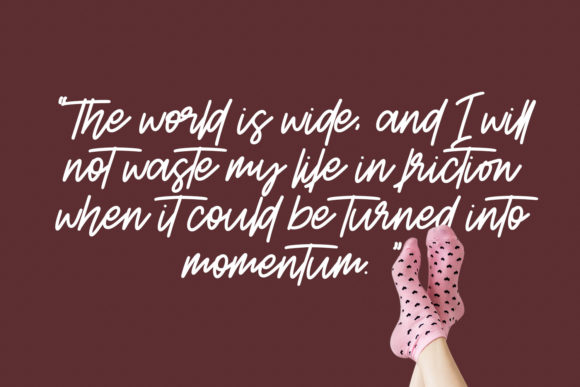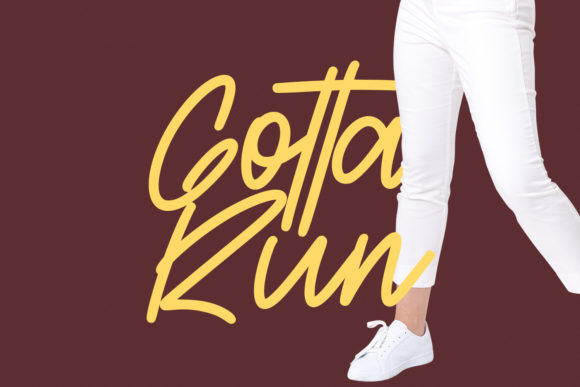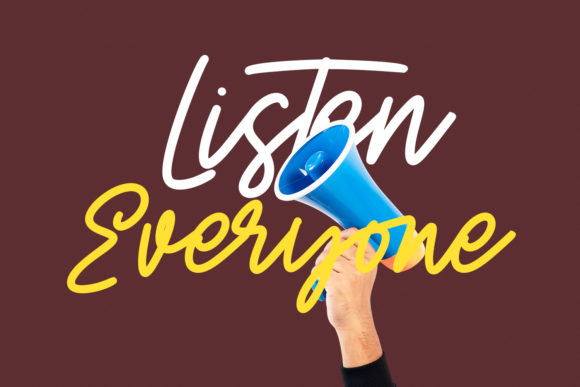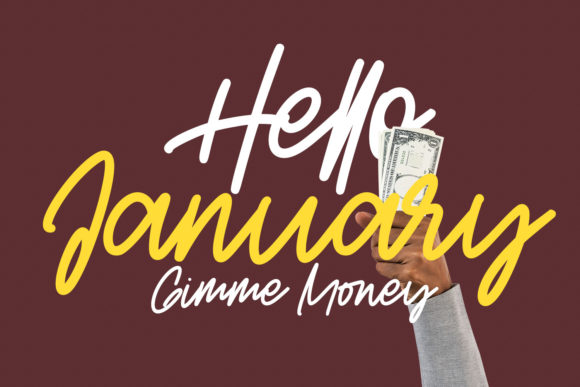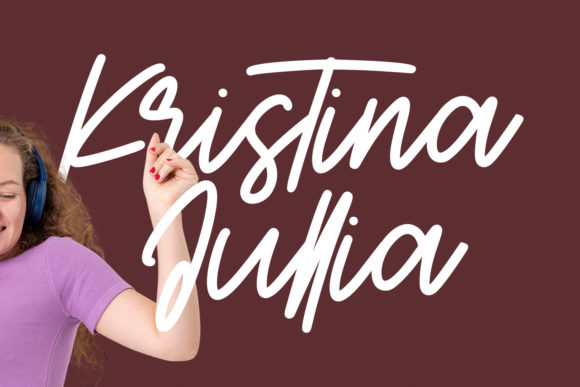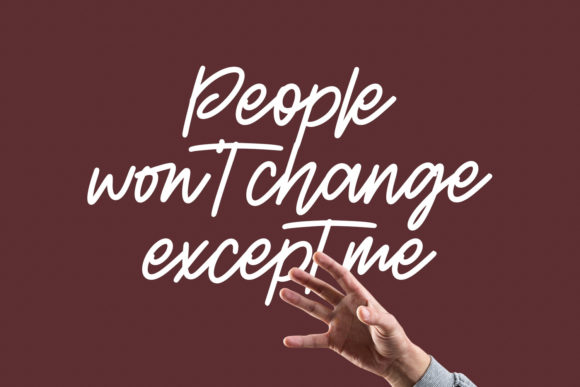
Introduction to Headskirt Font
Headskirt is a relaxed, casual and vintage styled script font.
Its informal style and cool vibe will make this font a go-to choice for each of the creations that require a chic touch .
Key Features of Headskirt Font
Why Choose Headskirt Font?